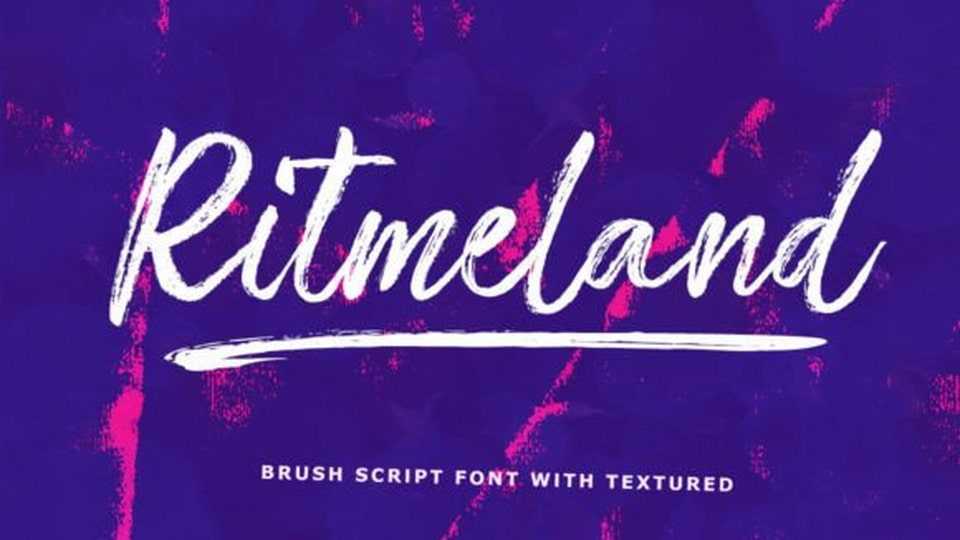
Download Ritmeland font, a brush with extreme cuts, sharp corners and interactive straps. Bold character separation and considered binding standards create a type that is sturdy, modern and attractive